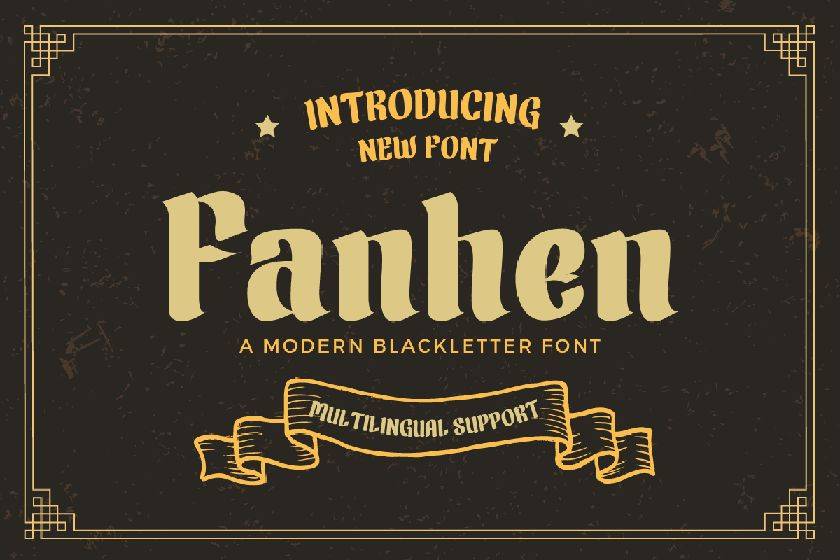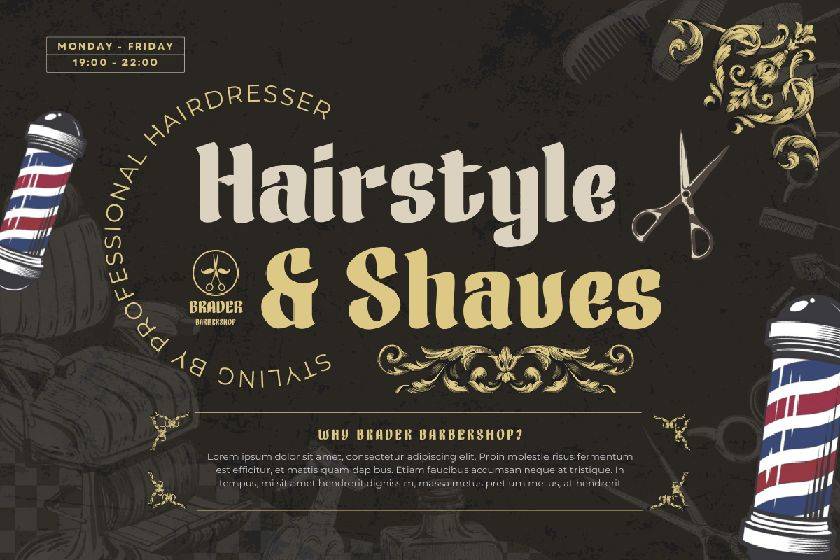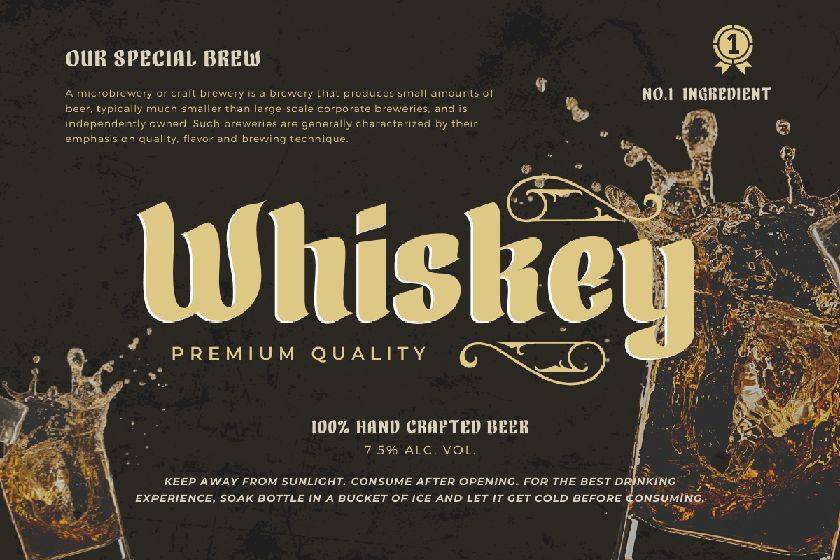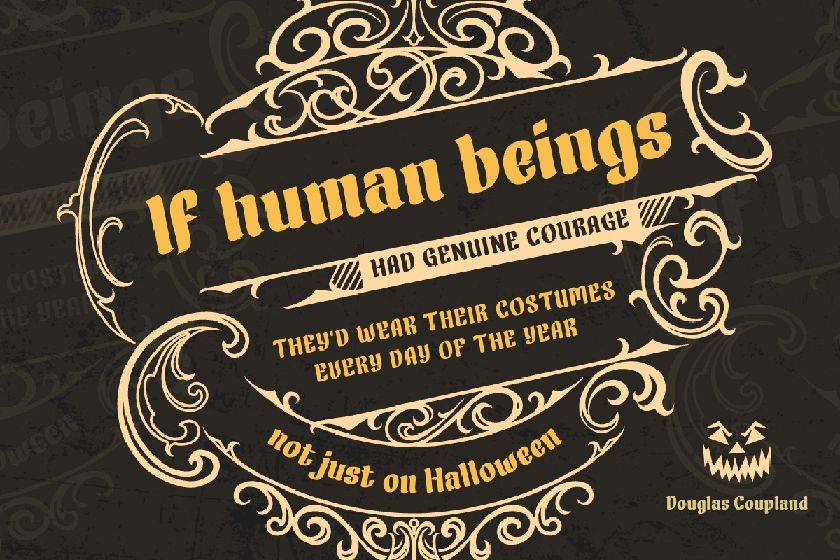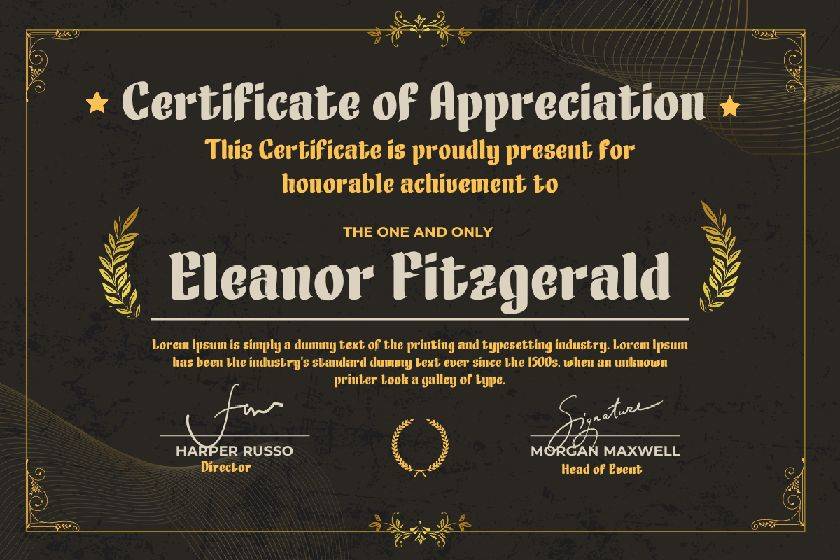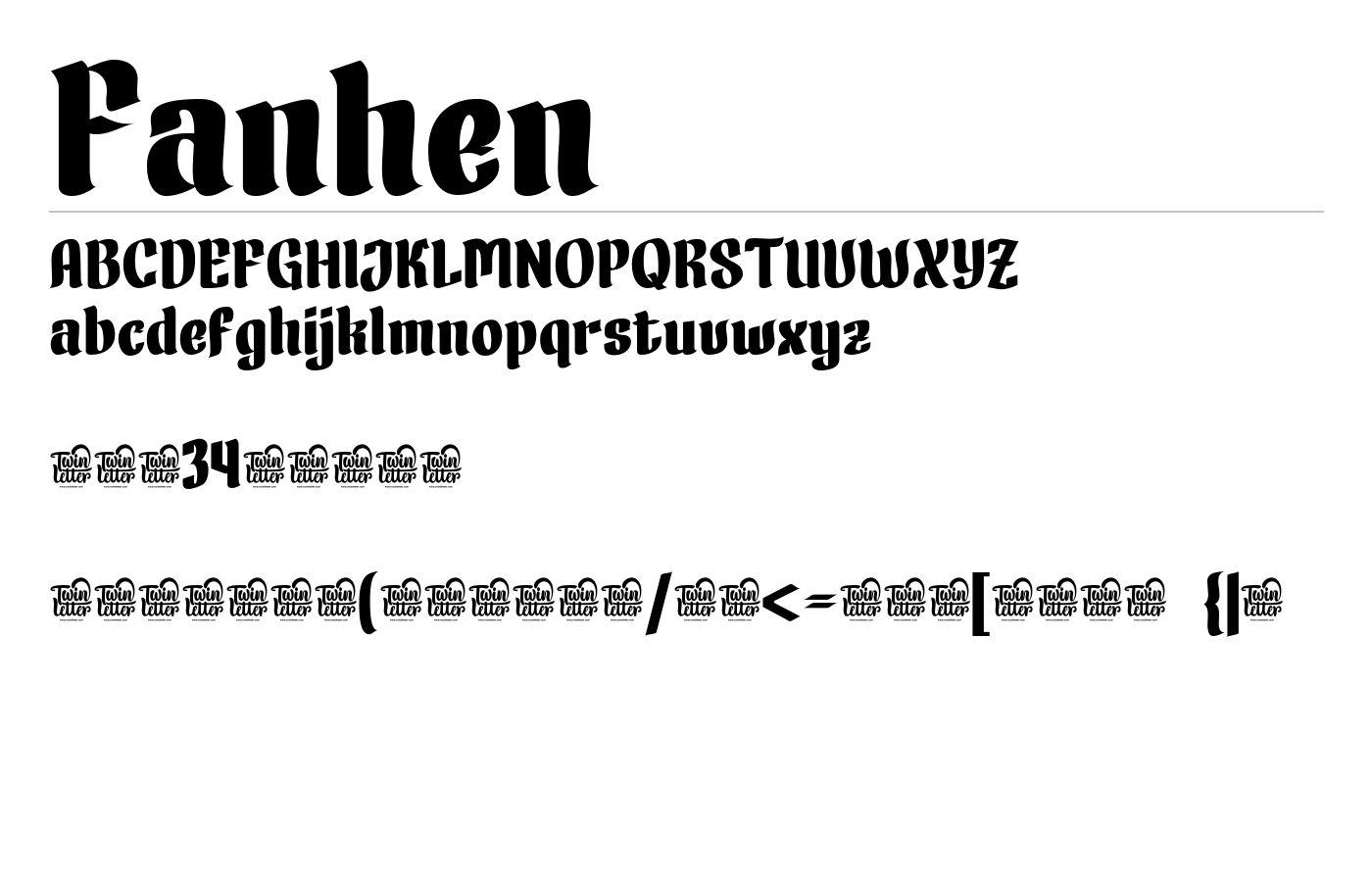
Fanhen is a bold serif font with a distinctive vintage and gothic style, featuring thick, blocky serifs and sharp contrasts that create a strong, dramatic look. Its unique letterforms bring character and a slightly ornate feel, making it ideal for eye-catching headlines, logos, and display uses where a powerful, timeless impression is desired. This font works well for brands or projects aiming to evoke confidence, tradition, and a touch of bold uniqueness.
Fanhen Font
About Fanhen Font